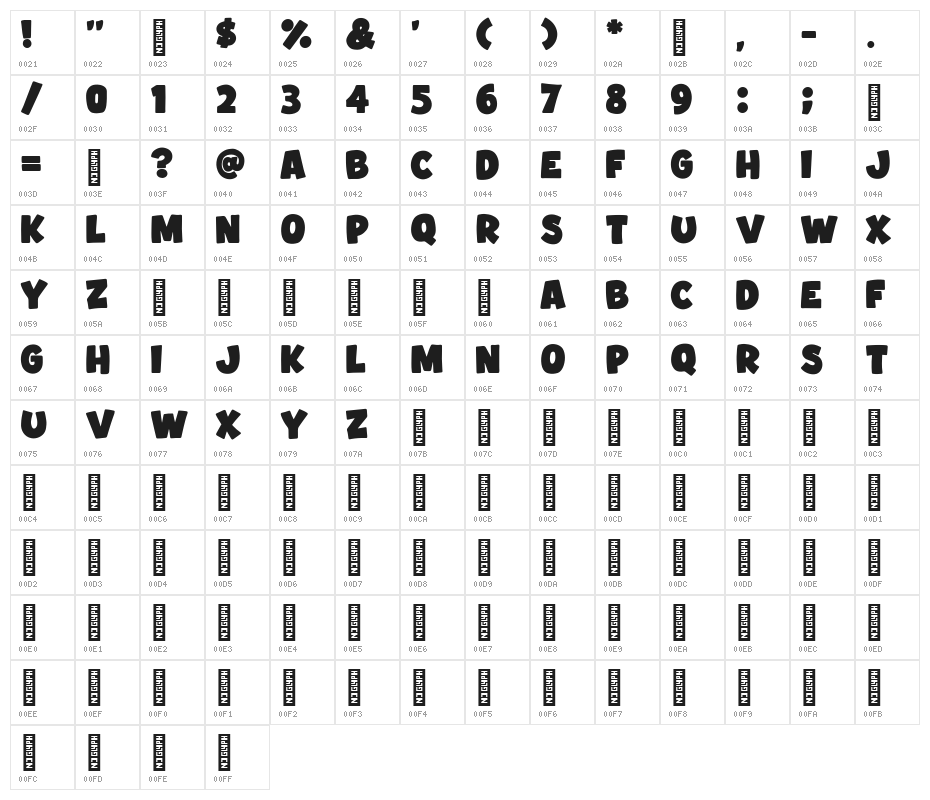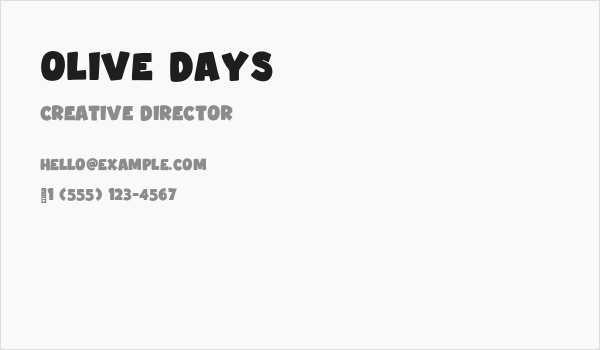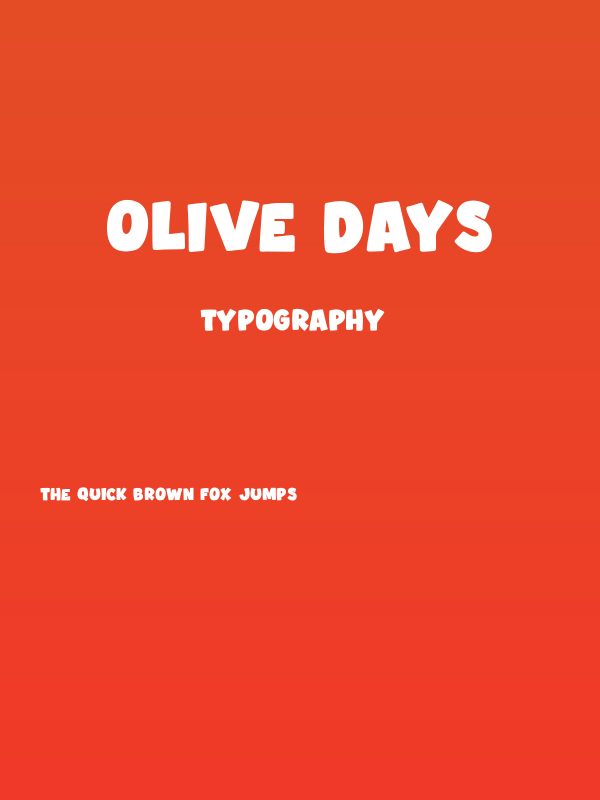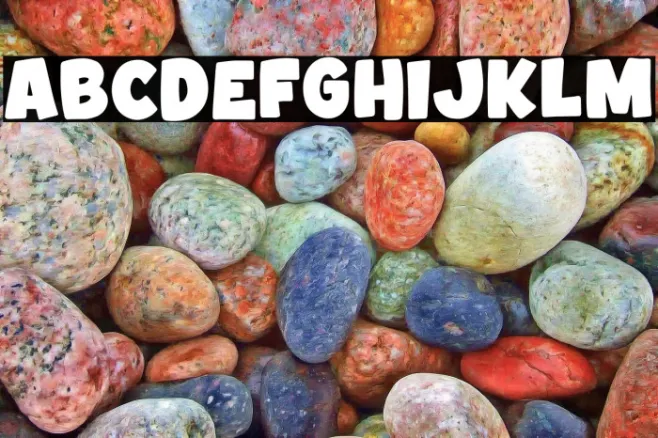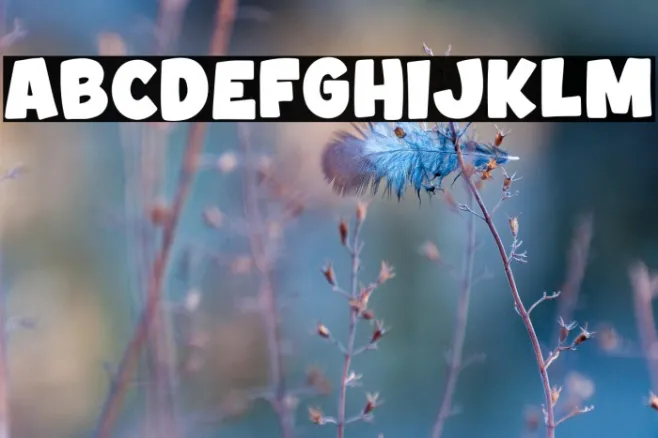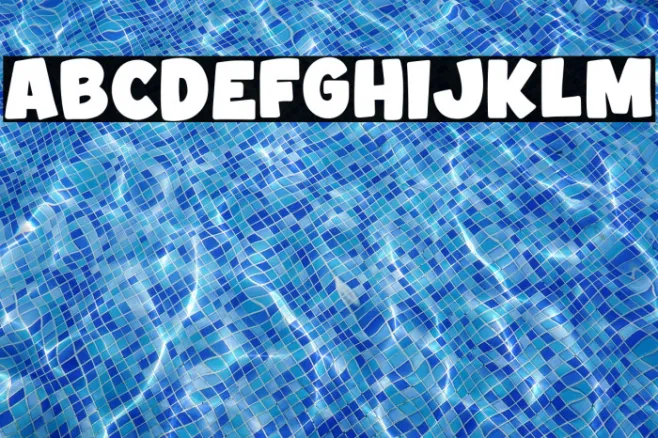
Olive Days Font
Olive Days Description
This font features bold, rounded characters with a playful and dynamic appearance. The letters are thick and slightly irregular, giving them a hand-drawn feel that adds a touch of whimsy. The uppercase and lowercase letters maintain a consistent weight, while the numbers and special characters are equally bold and expressive. The overall style is casual and friendly, making it suitable for projects that require a fun and approachable look. The font's unique character shapes and bold presence make it stand out, ideal for creative and eye-catching designs.
| Overall Style | Playful, Casual |
| Proposed Projects | Ideal for children's books, playful branding, posters, and social media graphics. |